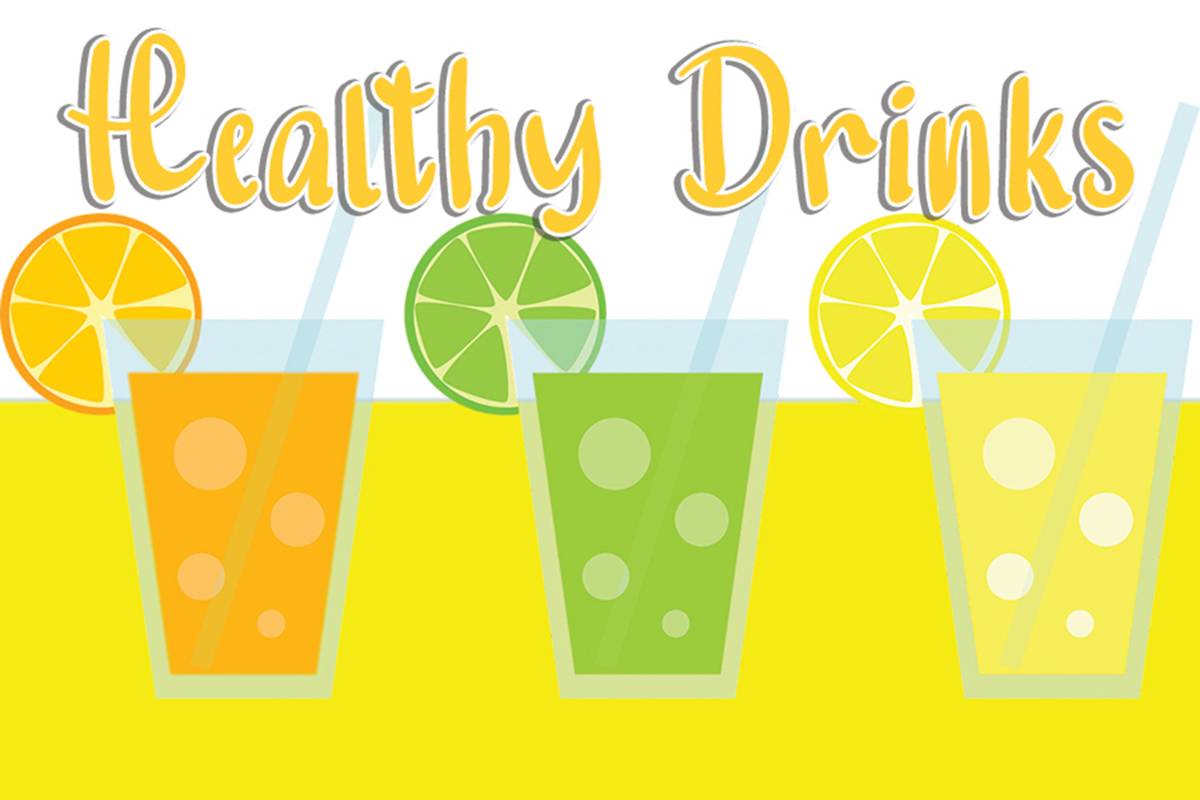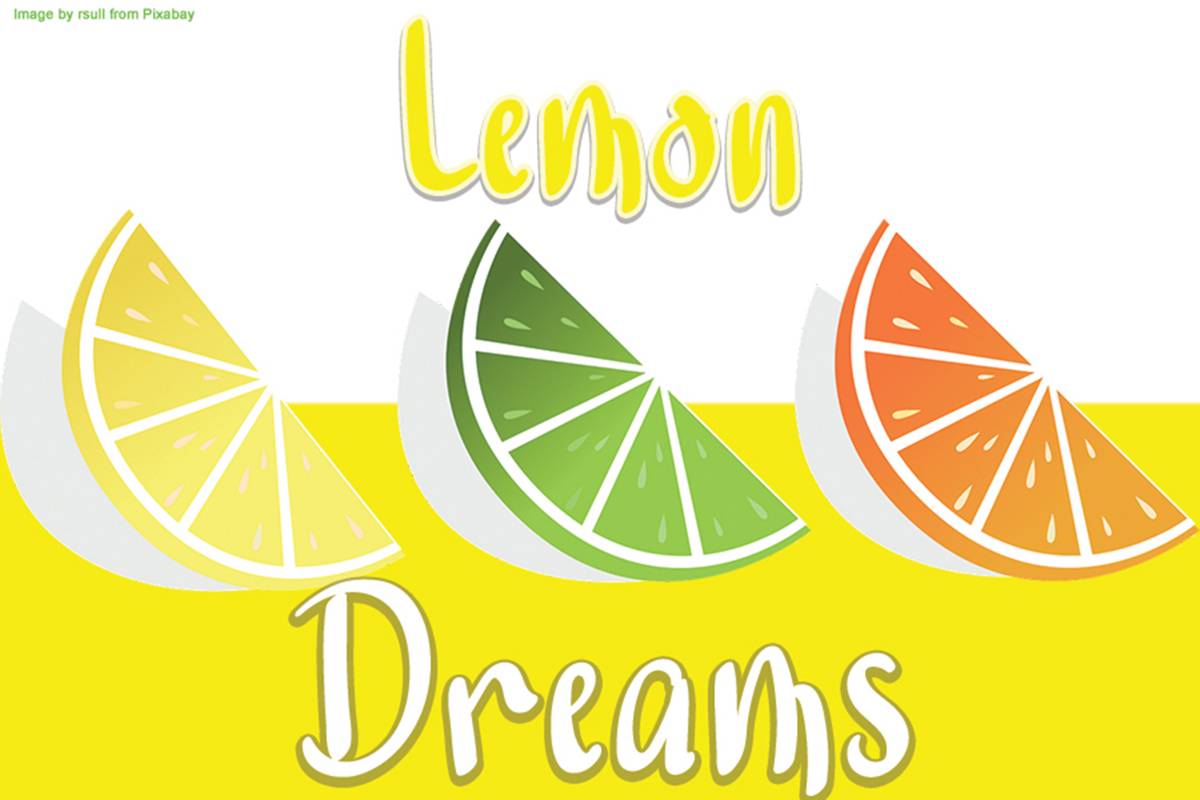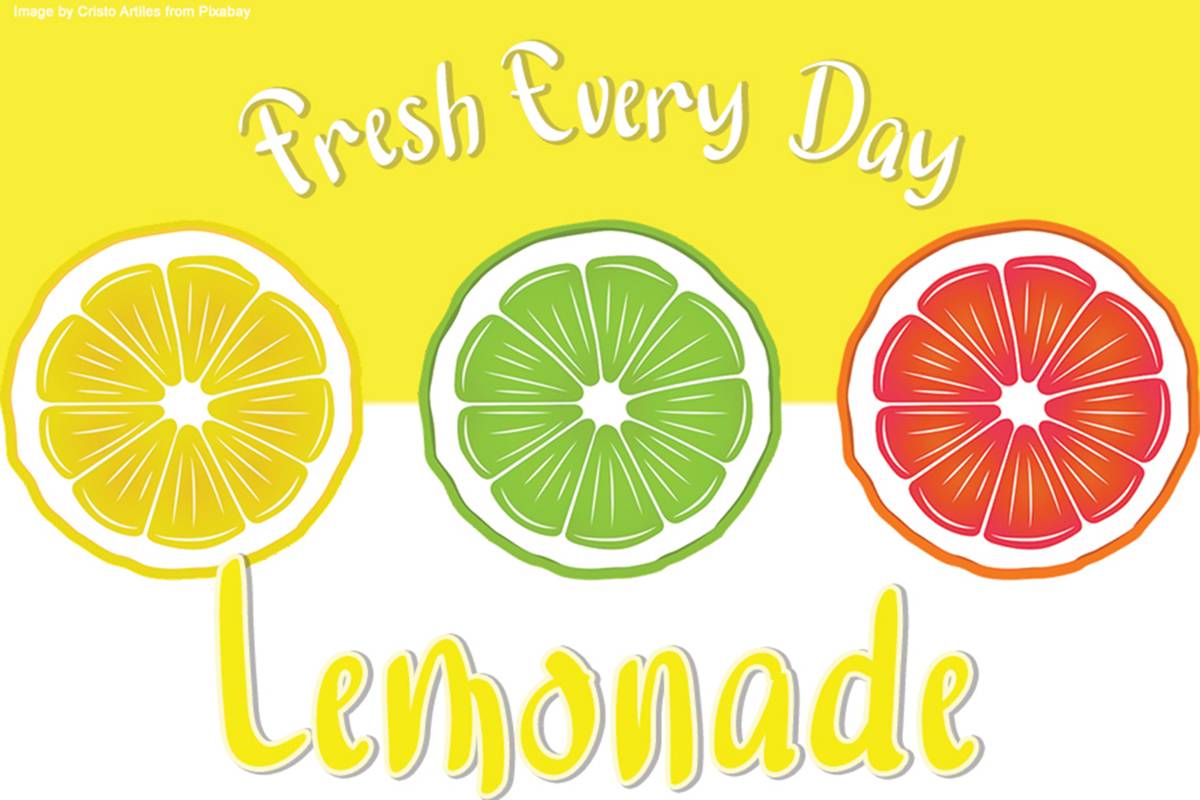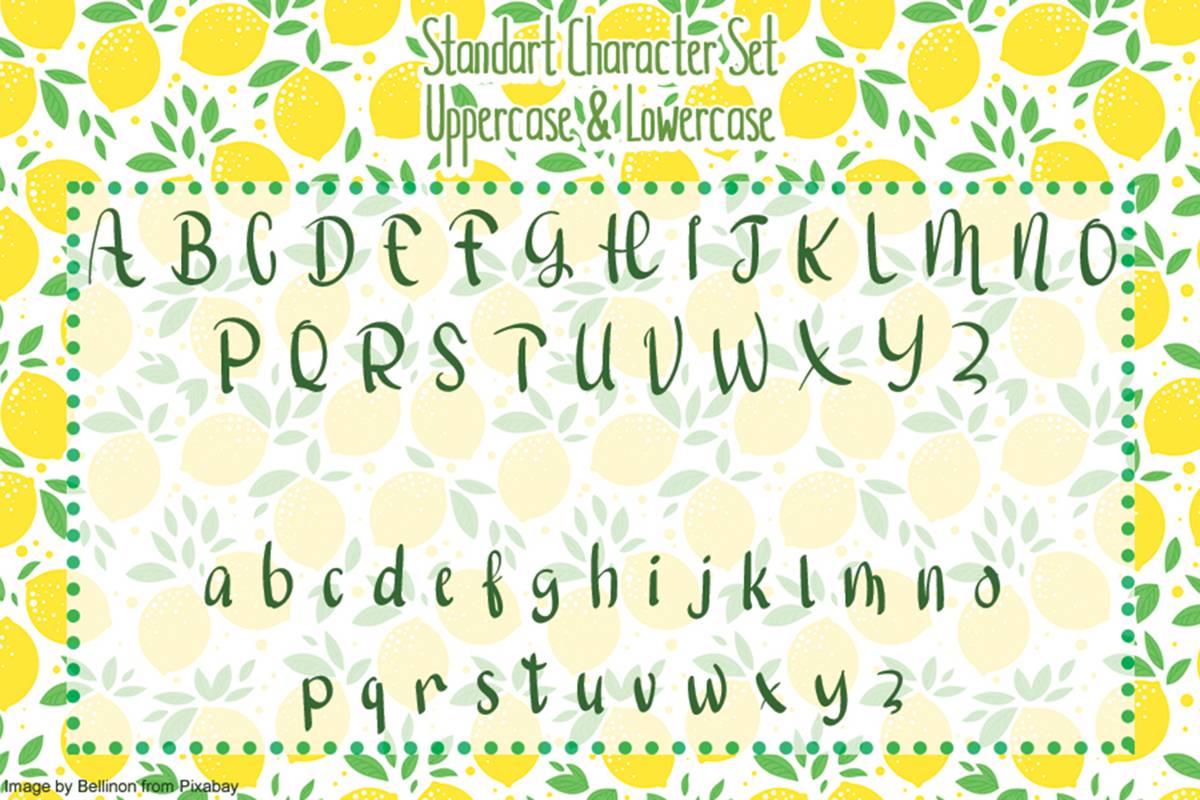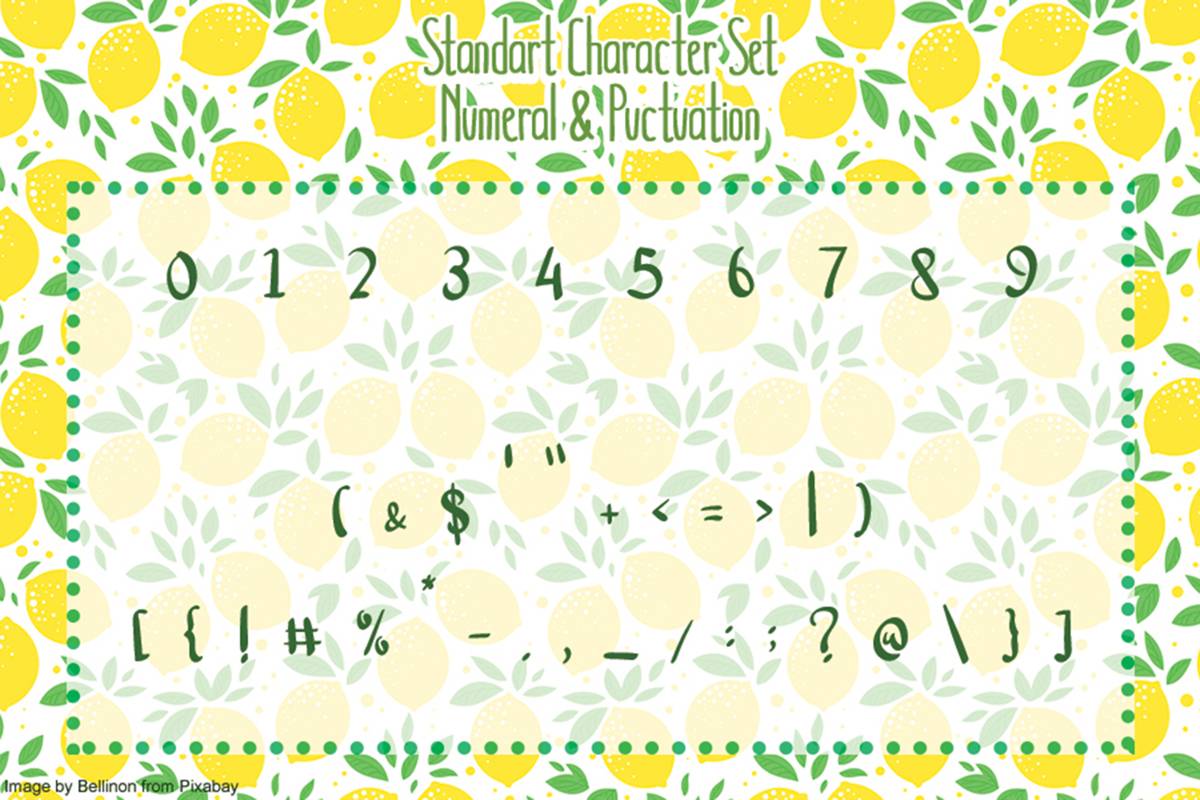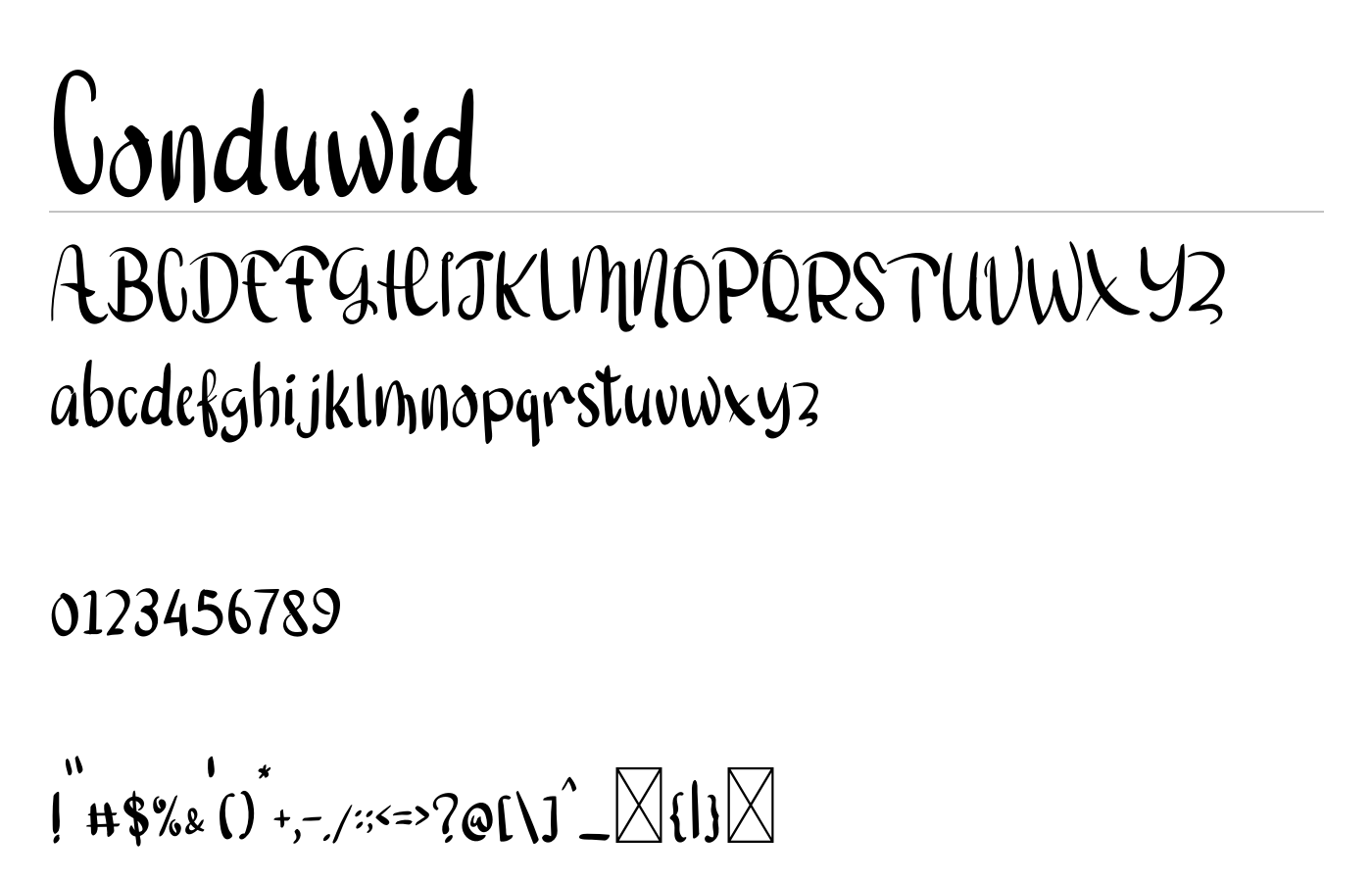
Healthy Drinks Font is a whimsical, handwritten script with a playful and organic feel. Its irregular, lightly textured strokes and unique letter shapes give it a friendly and casual personality, making it perfect for brands focused on health, natural products, or creative projects looking for a warm, approachable look. This font works best for logos, packaging, and headlines where a fresh, personal touch is needed.
Healthy Drinks Font
About Healthy Drinks Font